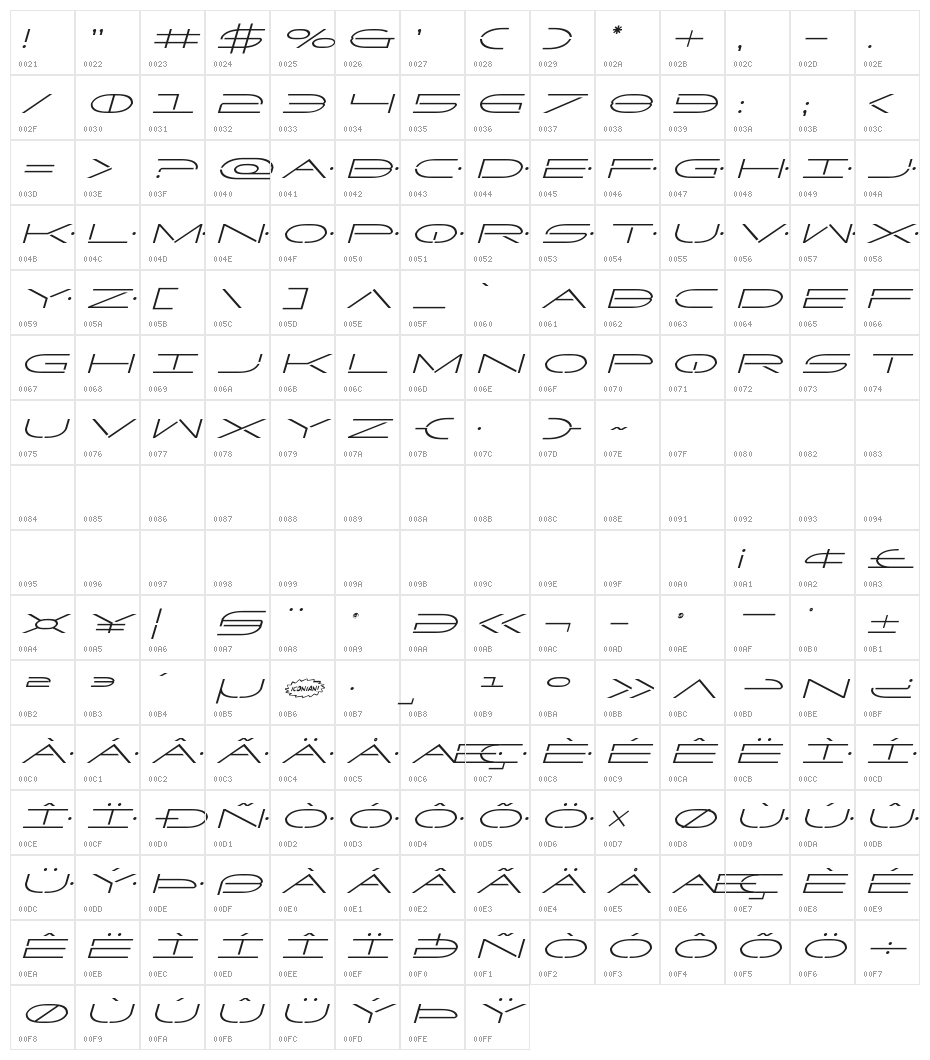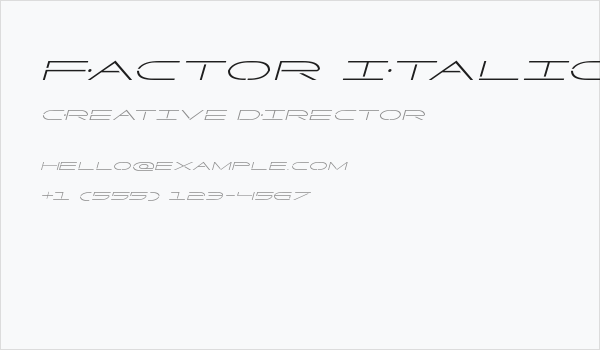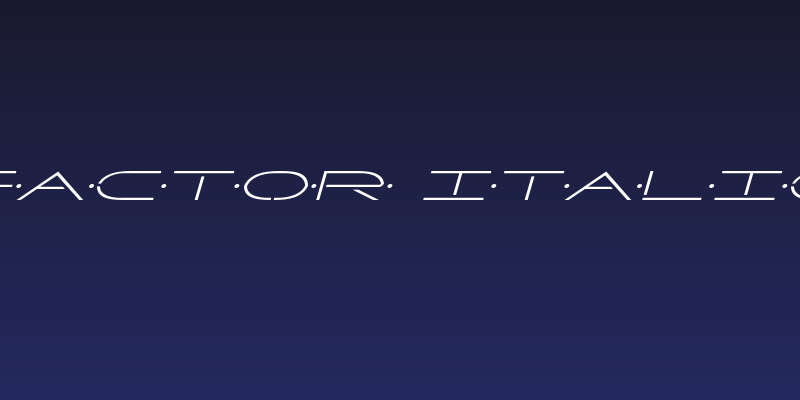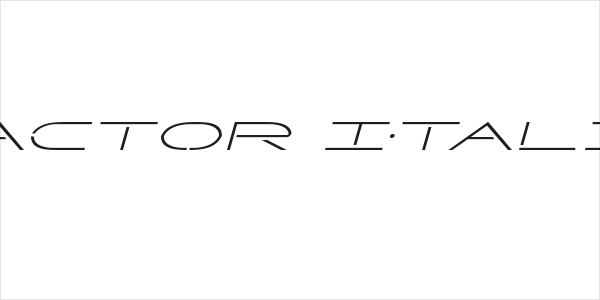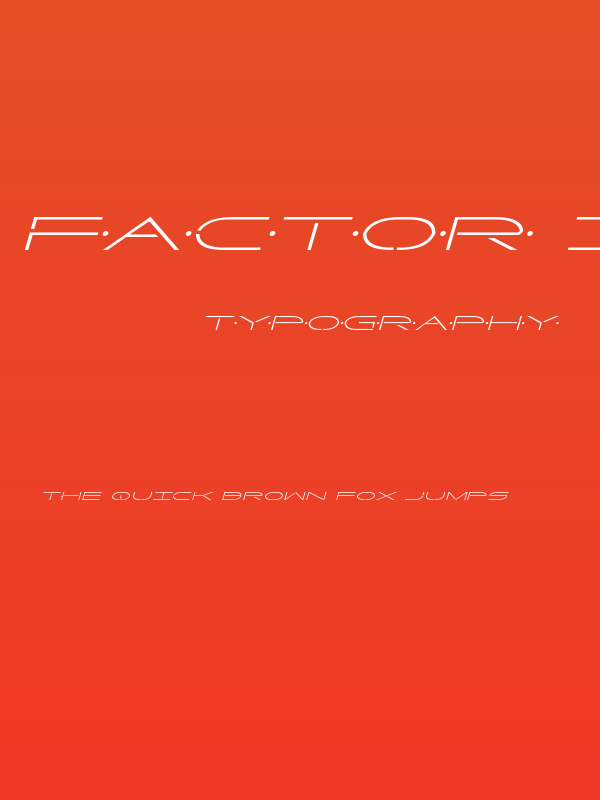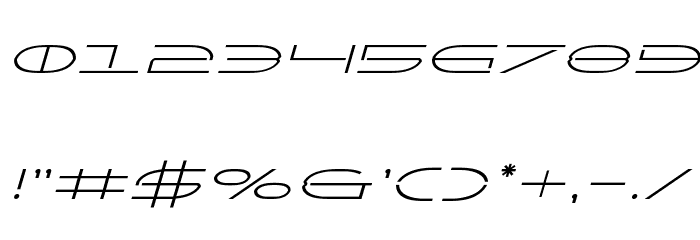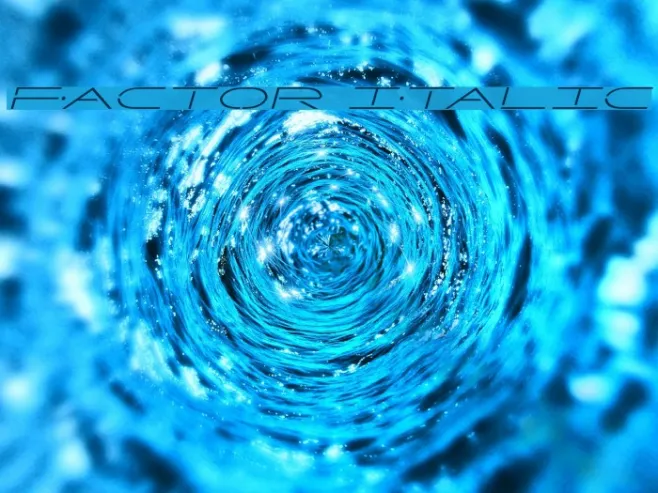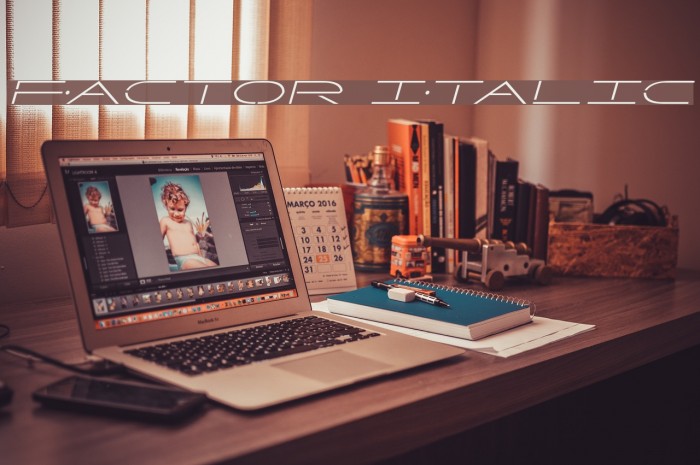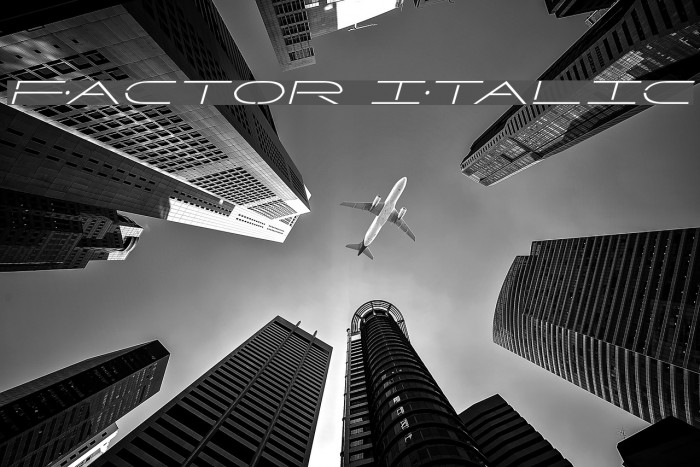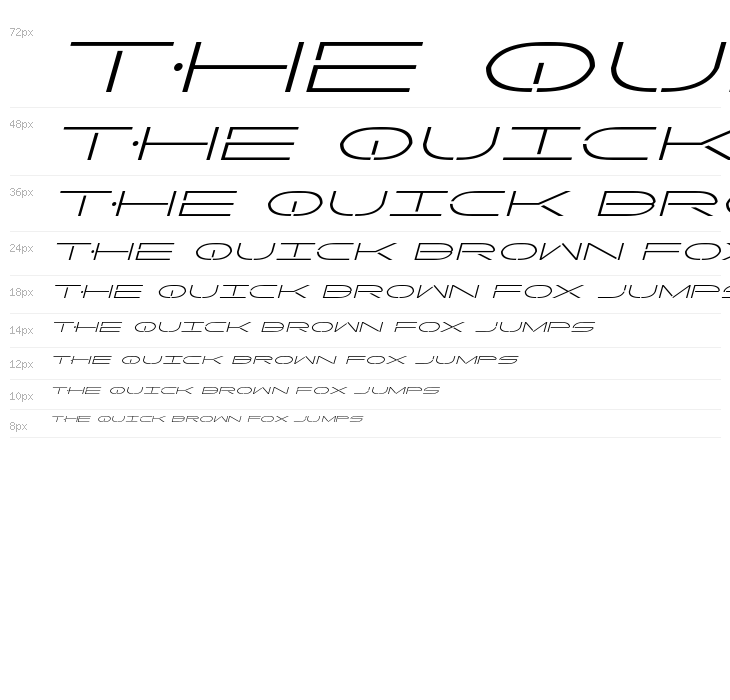
Factor Italic Font
Factor Italic Description
This font exhibits a sleek, futuristic design characterized by its geometric and angular letterforms. The characters are composed of thin lines with a consistent stroke width, giving it a clean and modern appearance. The italic slant adds a dynamic and forward-moving feel, enhancing its contemporary style. The uppercase and lowercase letters maintain a uniform height, contributing to a cohesive look. The numerals and special characters follow the same design principles, ensuring versatility across different uses. Its minimalist aesthetic makes it suitable for projects that require a cutting-edge and innovative touch.
| Proposed Projects | Ideal for tech branding, modern website headers, sci-fi themed designs, and innovative product packaging. |